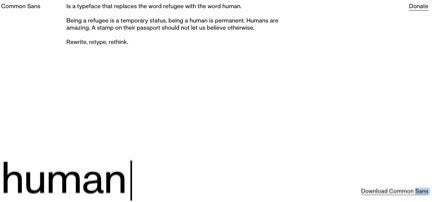
Toward the end of last year, the number of searches for the word "refugee" increased five-fold. Those hoping to educate themselves about the millions of people fleeing Syria and its surrounding countries to seek asylum elsewhere likely found a befuddling mix of opinions and news clips.
In November, over half of America’s governors announced that they would not house refugees. Obama denounced the move as un-American, but that didn’t stop many Republican presidential candidates from airing their vicious concerns.
Amid such frank Islamaphobia, Syrian families have begun to resettle in America, hoping their new home will be a safer one. A three-part series on The Huffington Post followed one such family’s attempt to live, work and generally become more comfortable with their lives in New Jersey.
To remind decriers of the fundamental nature we all share, a Swedish design company called Essen International and Solvatten made a simple font that swaps out the word "refugee" for the word "human." The font is called Common Sans.
The website for Common Sans notes, “Being a refugee is a temporary status, being a human is permanent. Humans are amazing. A stamp on their passport should not let us believe otherwise.”